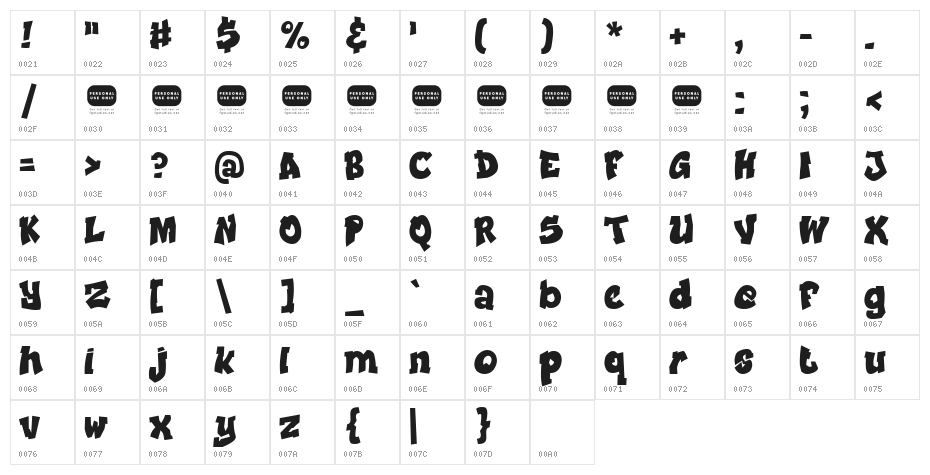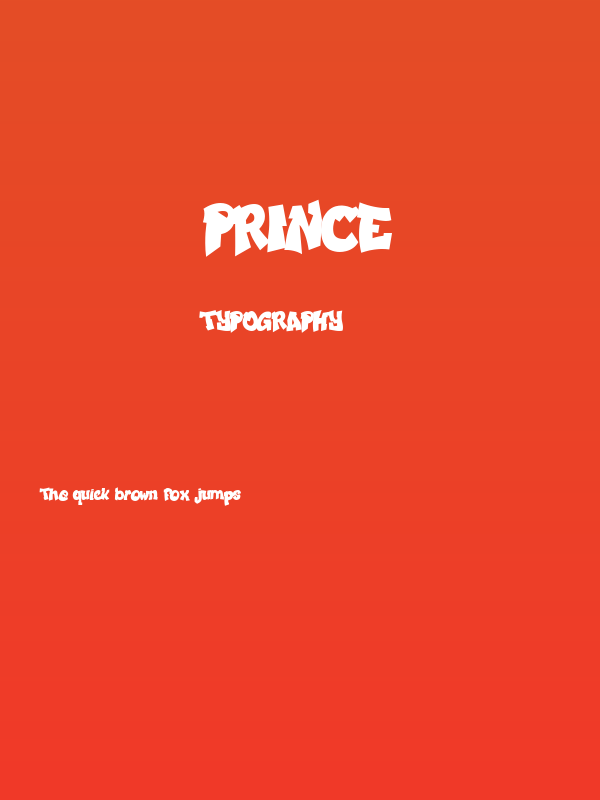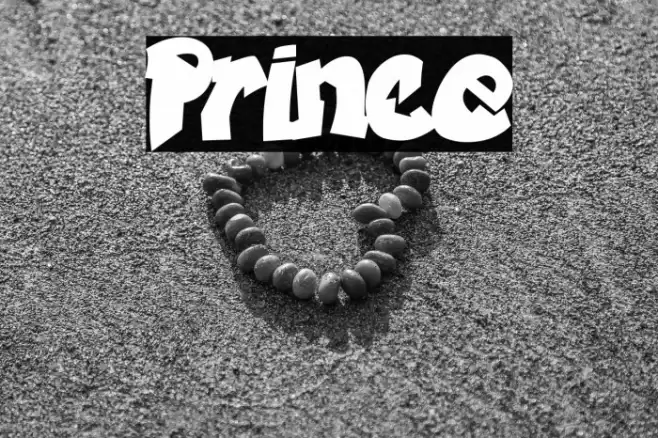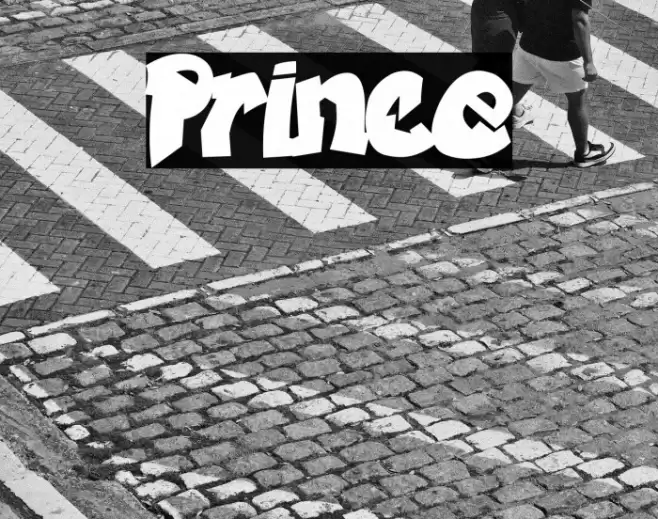
Prince Font
Prince Description
This font features a bold and dynamic style with a graffiti-like appearance. The characters are highly stylized with sharp angles and exaggerated curves, giving it a playful and energetic feel. The uppercase and lowercase letters maintain a consistent design, enhancing its cohesive look. The numbers and special characters follow the same bold and expressive style, making them stand out. This font is perfect for projects that require a strong visual impact and a modern, urban aesthetic.
| Proposed Projects | Ideal for street art designs, urban-themed posters, music album covers, and edgy branding projects. |